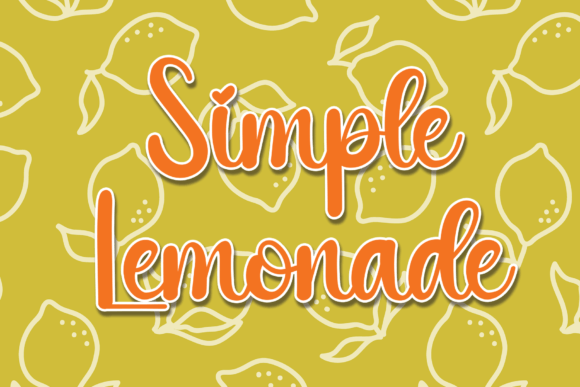
Unleash your creativity with Simple Lemonade Font, a delightful script font brimming with sweetness and affability. Designed by the talented Strongkeng Old, this enchanting font exudes a sense of joy and playfulness, making it the perfect choice for adding a touch of whimsy to your t-shirt designs.
Picture this: you're lounging in a sun-drenched meadow, the gentle breeze rustling through the leaves as you bask in the serenity of nature. The aroma of wildflowers fills the air, and you feel an overwhelming desire to capture this idyllic moment forever. With Simple Lemonade Font, you can do just that.
This captivating font will transform your t-shirts into canvases of artistic expression. Imagine your designs adorned with the playful dance of Simple Lemonade Font, evoking memories of carefree summer days and the joy of handwritten letters. Whether you're creating designs for personal use or for sale, this font is guaranteed to make your creations stand out from the crowd.
But Simple Lemonade Font isn't just limited to t-shirt designs. Its versatility extends to a wide range of creative projects, including wedding invitations, greeting cards, posters, social media graphics, and even logos. Its charming character will add a touch of warmth and personality to any project you undertake.
With its beautiful ligatures and alternate characters, Simple Lemonade Font offers endless possibilities for customization. Explore different color combinations, incorporate unique embellishments, or experiment with various design elements to create truly captivating visuals.